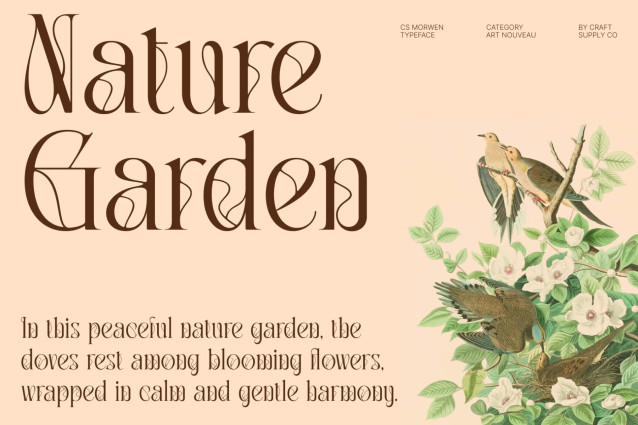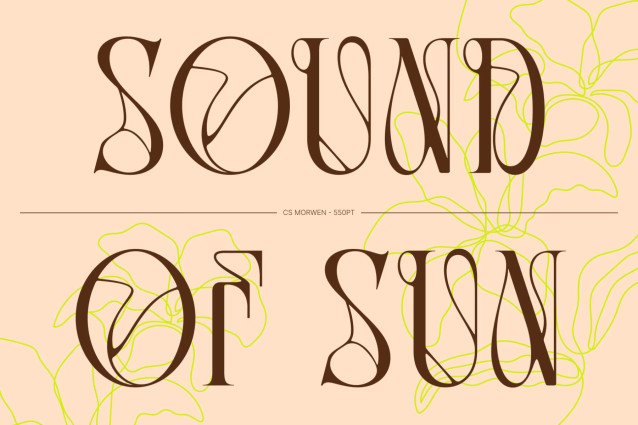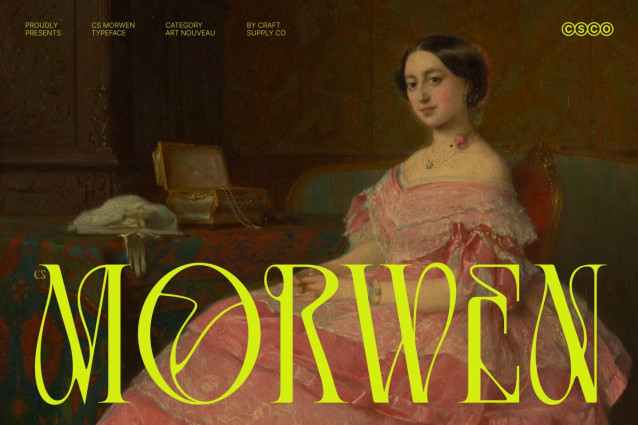
CS Morwen – Art Nouveau Font
CS Morwen – Art Nouveau Display Font with Organic Elegance
Modern Display Font with Art Nouveau Inspiration
This is a modern Art Nouveau display font that captures the beauty of flowing organic forms and timeless decorative artistry. Designed with graceful curves and refined proportions, this typeface creates a visual identity that feels elegant, fresh, and sophisticated. It is crafted for designers who seek typography that combines classic artistic influence with a contemporary aesthetic.
Smooth Organic Lines with Refined Character
The defining feature of this font lies in its smooth organic lines that flow naturally across every letterform. Inspired by the fluid beauty of Art Nouveau design, these elegant curves create a harmonious rhythm and a sense of movement, giving the font a soft yet distinctive presence. The result is typography that feels graceful, artistic, and visually captivating.
Fresh Style with Luxurious Appeal
This font blends decorative elegance with modern refinement, making it suitable for contemporary creative projects. Its balanced structure ensures readability while maintaining an expressive personality, allowing designs to feel both polished and unique. This combination of freshness and sophistication gives the font a premium and fashion-forward character.